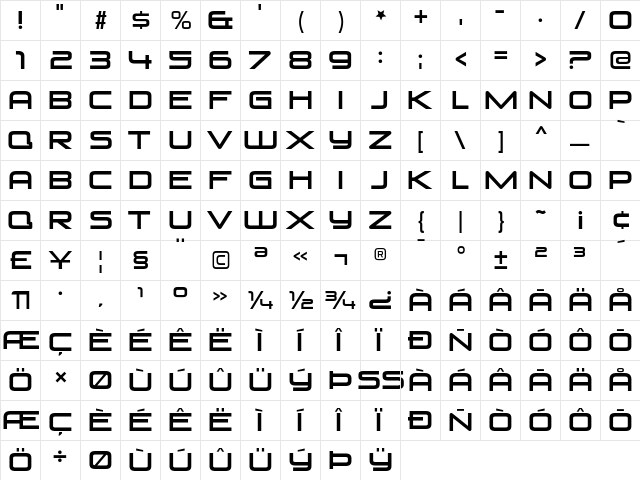
Venus Rising Regular
Design Context for Venus Rising Typeface
Venus Rising takes a measured approach to typography — its balanced proportions and neutral character make it a reliable workhorse for both digital and print work.